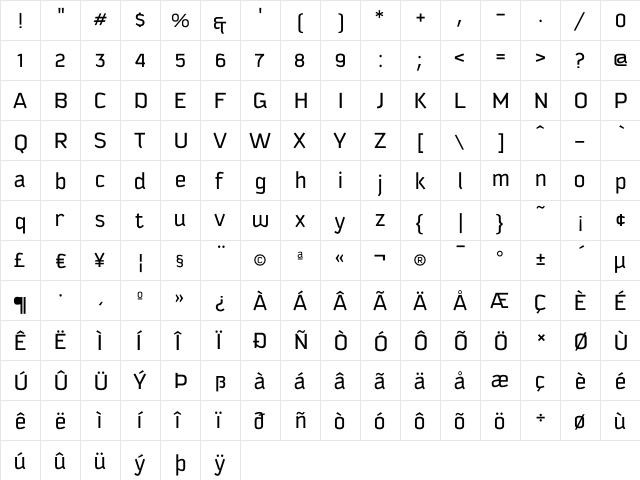
KautivaProC Regular
| Foundry | Alejandro Paul y Alfredo Graziani |
| Designer | Alejandro Paul y Alfredo Graziani |
Design Context for KautivaProC Typeface
KautivaProC offers clean, dependable letterforms without strong stylistic allegiance, making it a practical choice for designers who need flexibility.